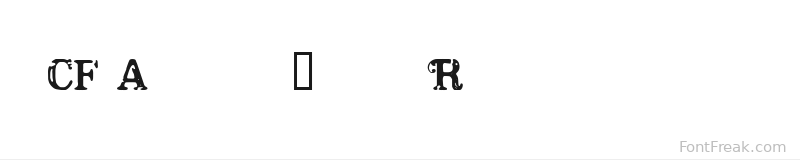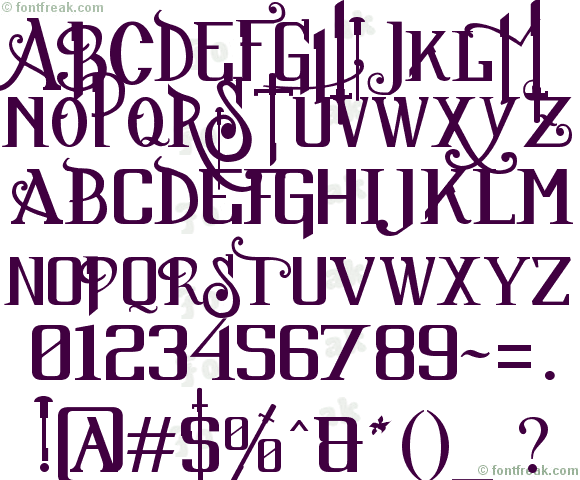
Sucker Font
Sucker Font, designed by Juan Casco, is a captivating display typeface that exudes a playful yet sophisticated charm. This font falls into the decorative category, showcasing a unique blend of artistic flair with its elegant curves and whimsical elements. The visual characteristics of Sucker Font include a moderate stroke weight with a slight contrast, enhancing its legibility while still making a bold statement. The spacing is thoughtfully designed, allowing for a fluid reading experience, while decorative swirls and flourishes add a touch of personality to the overall aesthetic.
Sucker Font is versatile and well-suited for various creative projects. It shines in wedding invitations, where its romantic undertones can evoke a sense of celebration and joy. Additionally, this font makes a striking choice for movie posters, lending an air of drama and excitement to promotional materials. Restaurant menus benefit from Sucker Font's inviting style, making dishes appear more appealing and enhancing the dining experience. It's also a fantastic option for branding and logo design, giving small businesses a distinctive identity that captures attention. Content creators will find Sucker Font particularly useful for social media graphics and digital content, as its unique character can help stand out in a crowded online space.